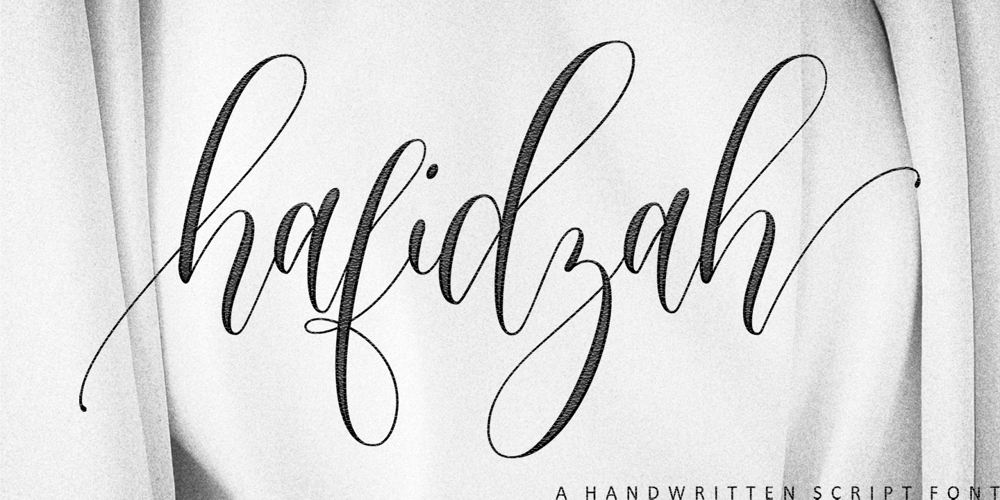
Hafidzah Font Family was designed by Nurul Fajri Redy and published by Redy Studio. Hafidzah contains 1 styles and family package options. Hafidzah – Modern Calligraphy ScriptMeet Hafidzah. Hafidzah is a modern calligraphy font that combines traditional calligraphy style with modern type-design techniques. It comes in dashing rounded terminals and structured letters. You’ll especially love working with the decorative and elegant swashes that are included in Hafidzah, which you can use to add a fancy touch to your designs and expand the font’s versatility. Hafidzah is great for a wide range of projects, including logos, wedding invitations, greeting cards, product packaging, and signage. The combination of traditional calligraphy style, modern type design techniques, and unique letterforms will give your logo or project a stylish approach. Hafidzah will add individuality and originality to your designs, making them more fun and modern.Hafidzah features: A full set of upper & lowercase characters Numbers & punctuation 19 Special ligatures Lowercase beginning swashes Lowercase ending swashes Lowercase alternates characters Multilingual symbols PUA Encoded Characters – Fully accessible without additional design software. Feel free to give me a message if you have a problem or question. Thank you so much for taking the time to look at one of our products.